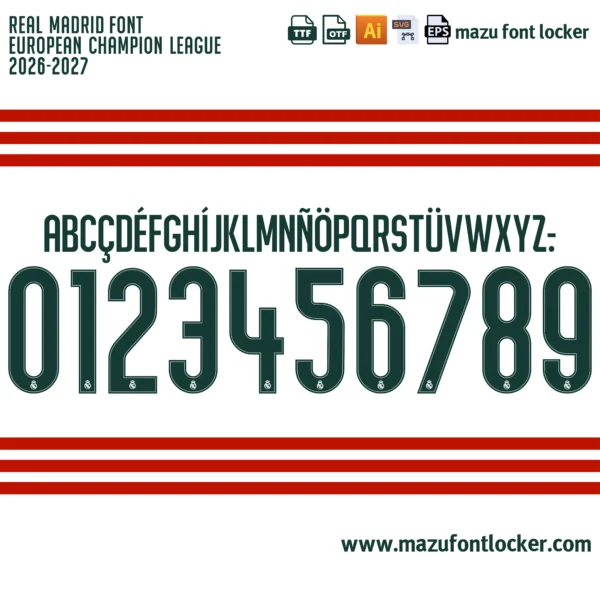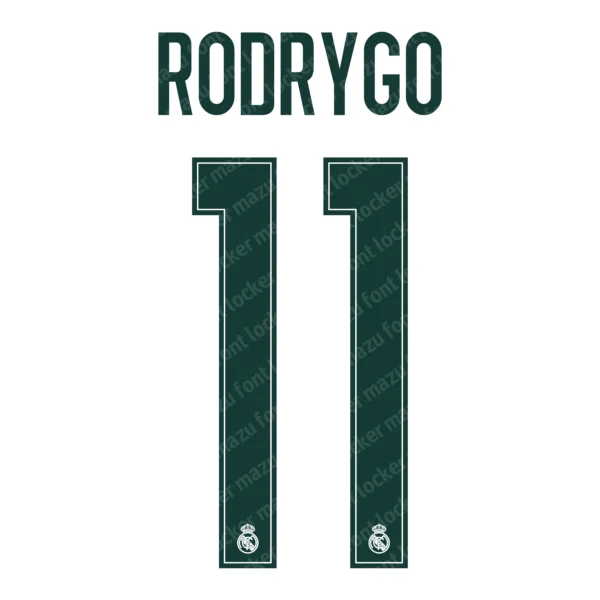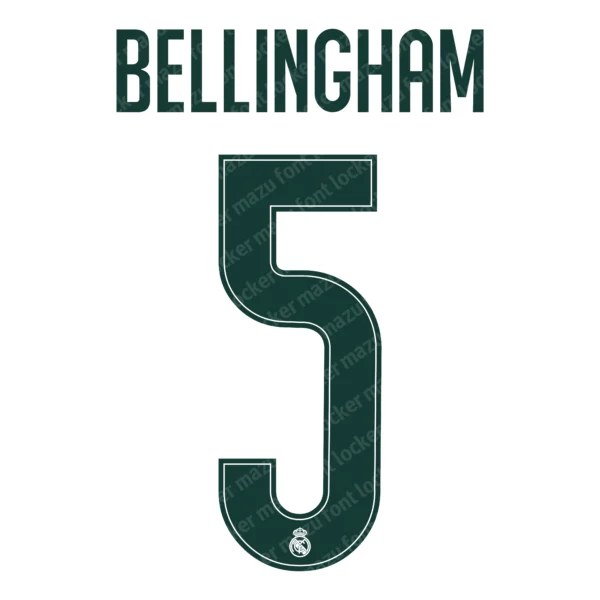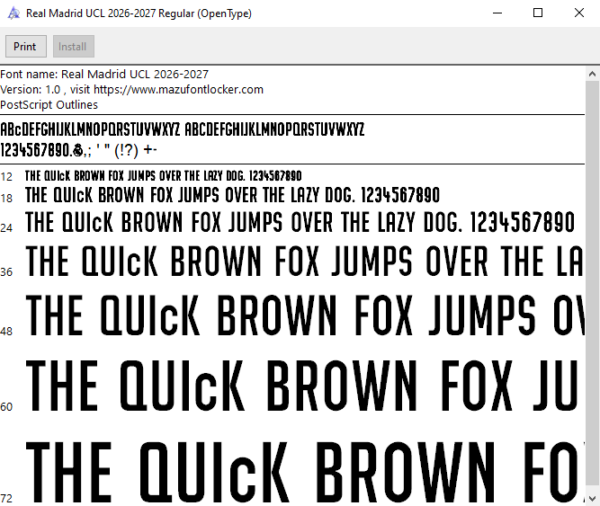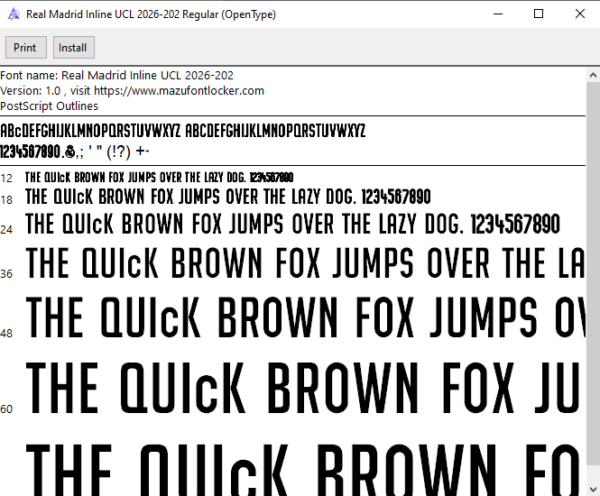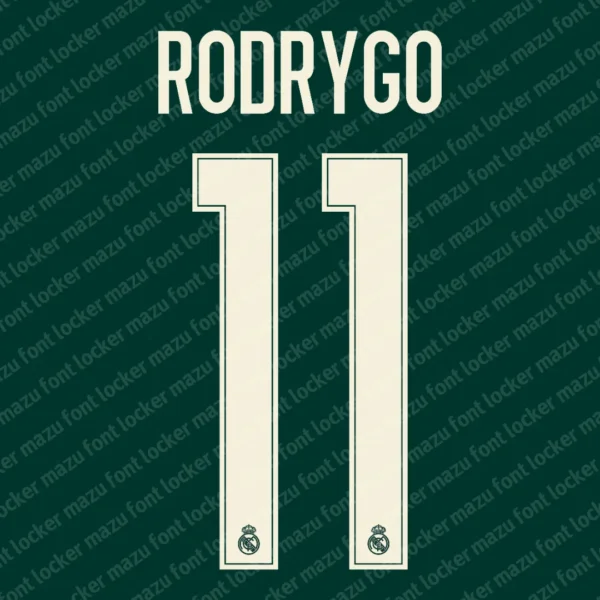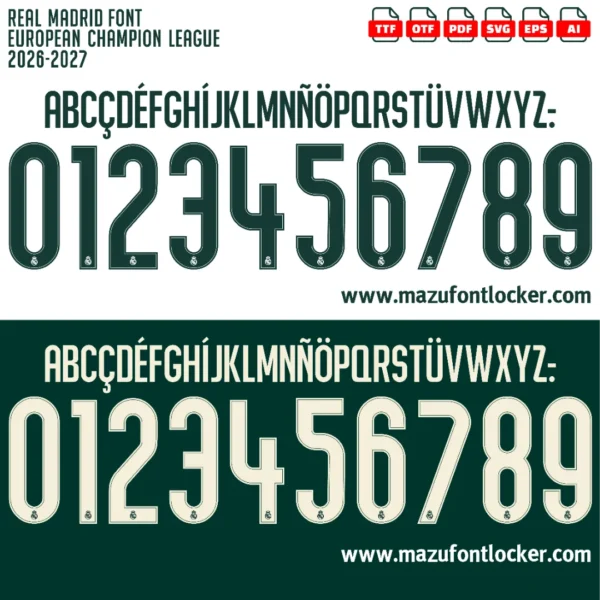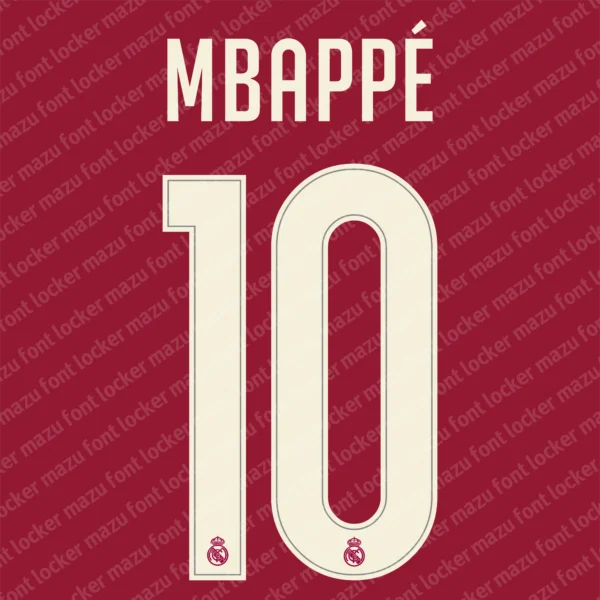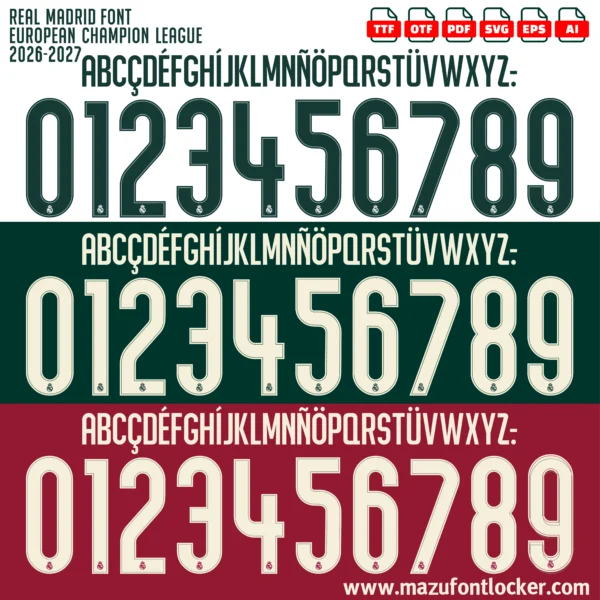
Real Madrid UCL 2026-2027 Font Vector – Epic Los Blancos Legendary Masterpiece
Real Madrid UCL 2026-2027 Font Vector – Authentic Merengues Typeface
The Real Madrid UCL 2026-2027 Font Vector is a premium typeface that accurately recreates the official match lettering worn by Real Madrid during the 2026-2027 UEFA Champions League campaign. This high-quality vector font kit captures the bold, elegant, and royal typography that represents the winning mentality and historic greatness of this Spanish giant.
This font stands out because of its sharp vector precision and strong club identity. Every letter and number is crafted to match the exact style used on the players’ shirts during the 2026-2027 Champions League campaign. Whether you are making realistic kit templates or exciting Los Blancos content, the Real Madrid UCL 2026-2027 Font Vector gives your designs that authentic Real Madrid look.
The letterforms in the Real Madrid UCL 2026-2027 Font Vector are tall, bold, and highly readable. The strokes have a strong, clean weight with excellent edge definition that looks powerful on the back of jerseys while maintaining classic Spanish royalty and modern elegance.
- Special Real Madrid crest glyph – Press the “:” (colon) symbol to insert the Real Madrid logo
- Includes the exact crest glyph placement used under player numbers